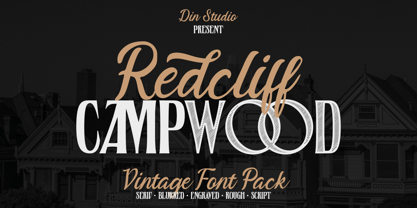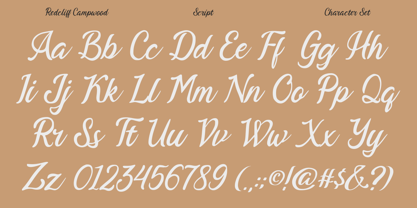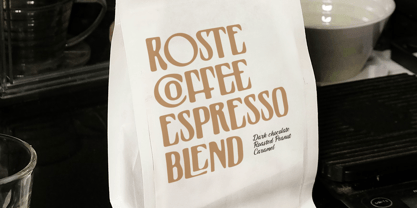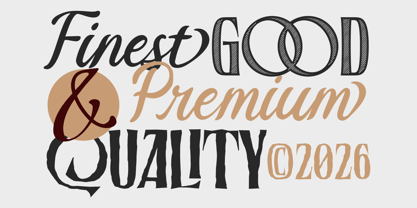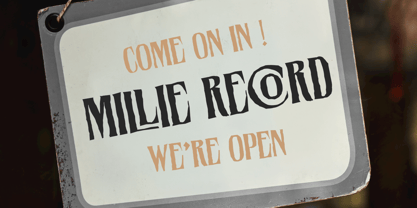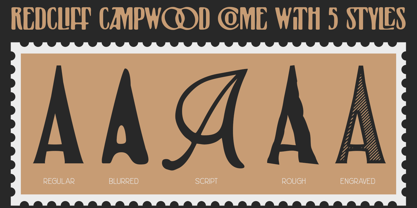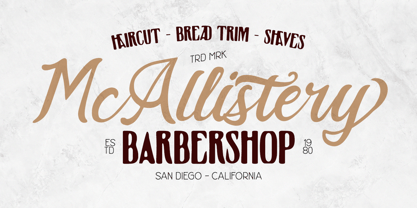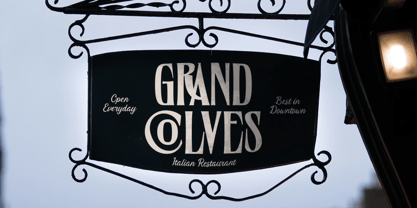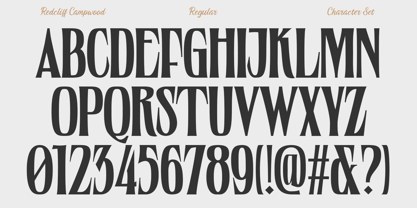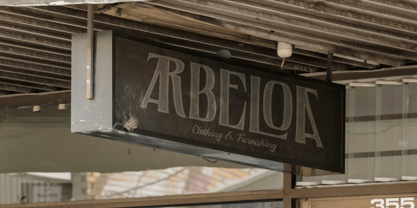
Redcliff Campwood
La familia tipográfica Redcliff Campwood fue diseñada por Donis Miftahudin y publicada por Din Studio. Redcliff Campwood contiene 5 estilos y opciones de paquete familiar. Más información sobre esta familia
Redcliff Campwood is a premium vintage font pack designed to capture the timeless character of classic retro typography. Inspired by old camping signage, rustic lettering, heritage branding, and handcrafted print styles, this font collection brings an authentic vintage atmosphere to any creative project. This vintage font pack contains serif, blurred, engraved, rough and script font. Each typeface in the collection is designed to evoke the spirit of adventure, outdoor culture, and traditional craftsmanship. In addition, enjoy the features here.
Features:
• Ligatures
• Stylistic Sets
• Numerals and Punctuations
Redcliff Campwood fits in logos, quotes, name cards, branding, posters, and many more designs. Find out more ways to use this font by taking a look at the font preview.
Din Studio is a type design studio founded by Donis Miftahudin in 2017. The studio focuses on creating unique and visually appealing script and display fonts that stand out in the industry. Donis Miftahudin is a well-known type designer in the industry and has created several popular fonts under the Din Studio brand.The fonts designed by Din Studio are characterized by their distinct style and aesthetic appeal. The studio's designs often incorporate unique elements, such as intricate ligatures and swashes, to create fonts that are not only visually stunning but also highly functional. The studio's fonts are often used in a variety of applications, including branding, advertising, and editorial design.Din Studio's fonts are highly regarded in the design community and have received recognition from industry publications and organizations. The studio has been featured in several design blogs and magazines, and its fonts have won awards at prestigious design competitions.One of the hallmarks of Din Studio's work is its commitment to innovation and experimentation. The studio is constantly exploring new techniques and approaches to type design, pushing the boundaries of what is possible in the field. This dedication to innovation has helped Din Studio establish itself as one of the most exciting and influential type design studios in the industry.Overall, Din Studio is a dynamic and innovative type design studio that is pushing the boundaries of what is possible in the field. With its focus on unique and visually appealing script and display fonts, the studio is poised to continue making a significant impact in the design community for years to come.